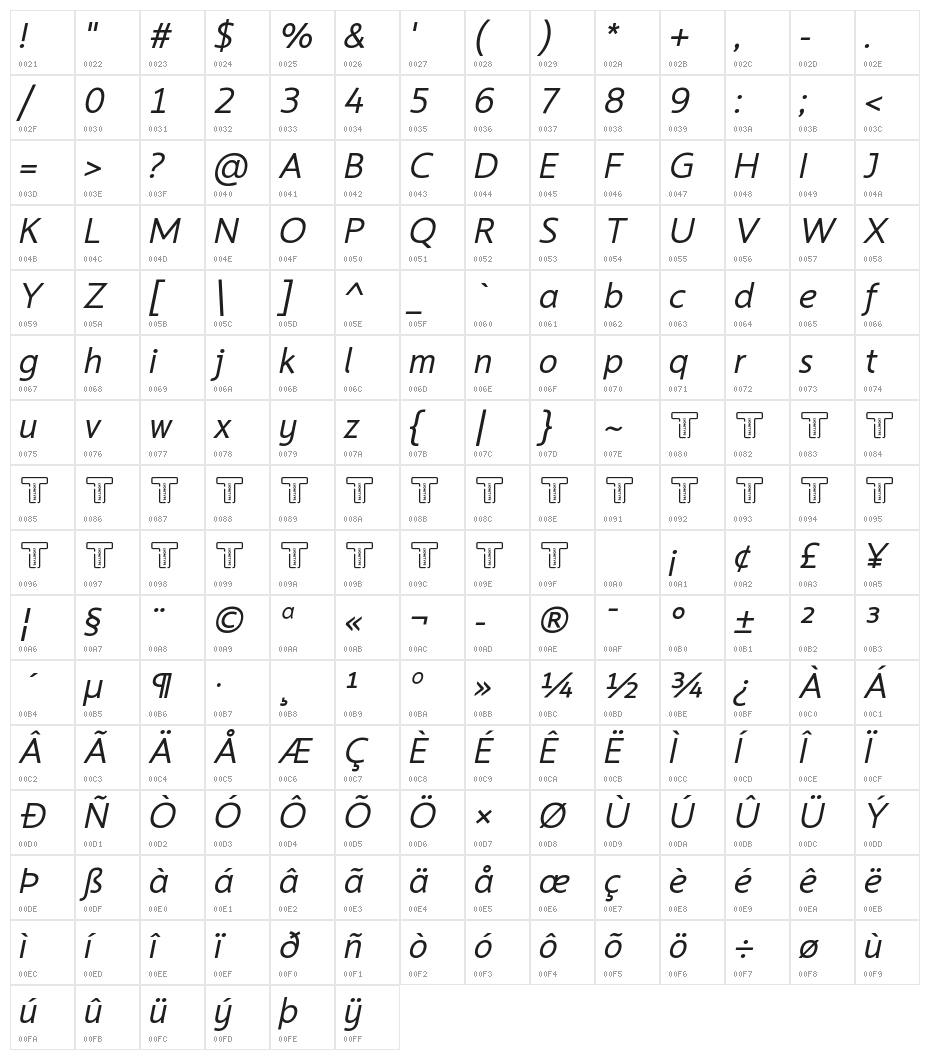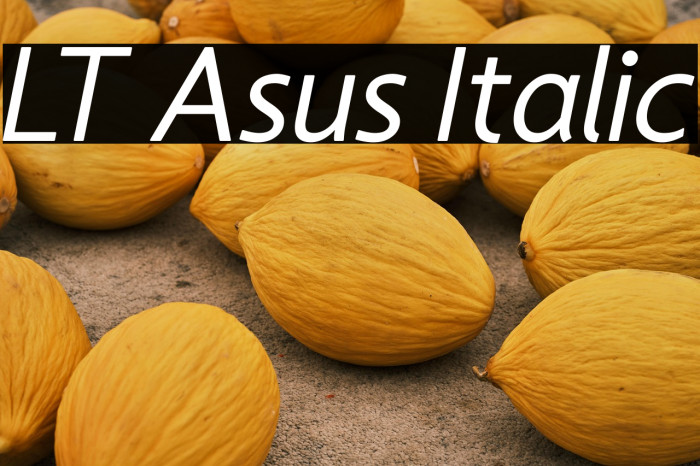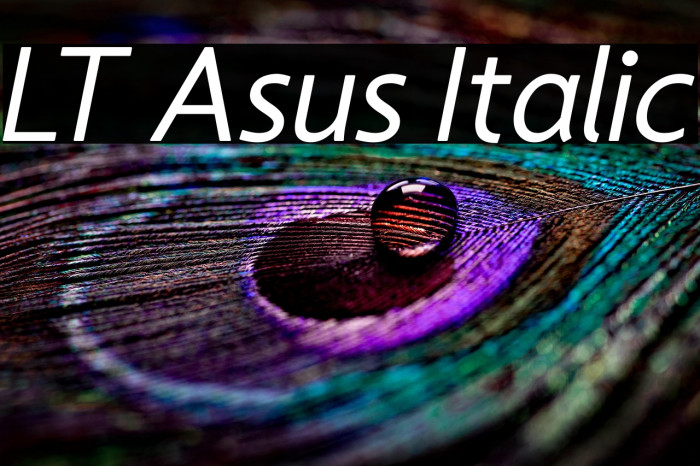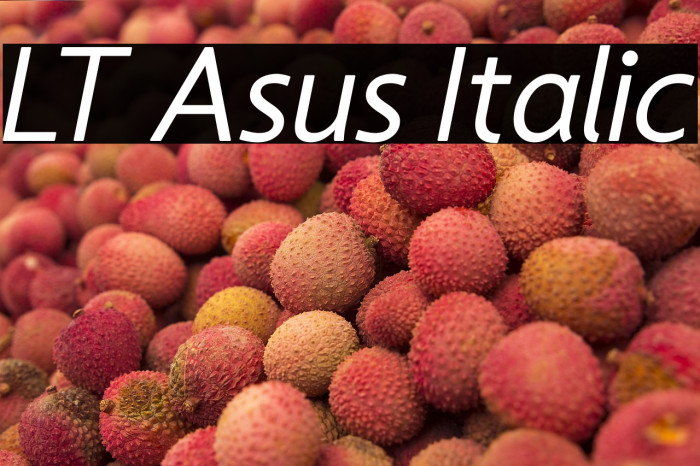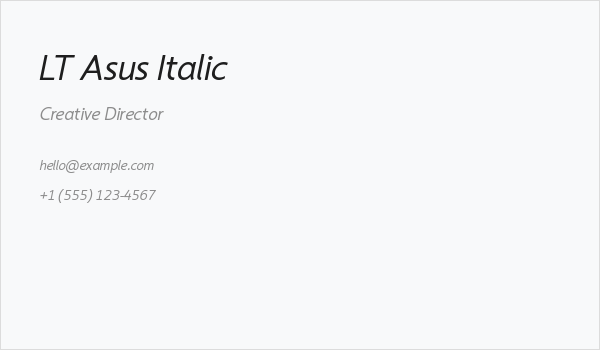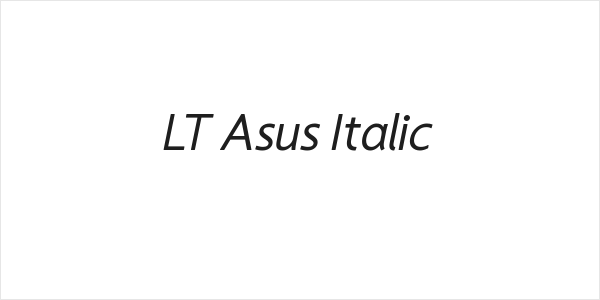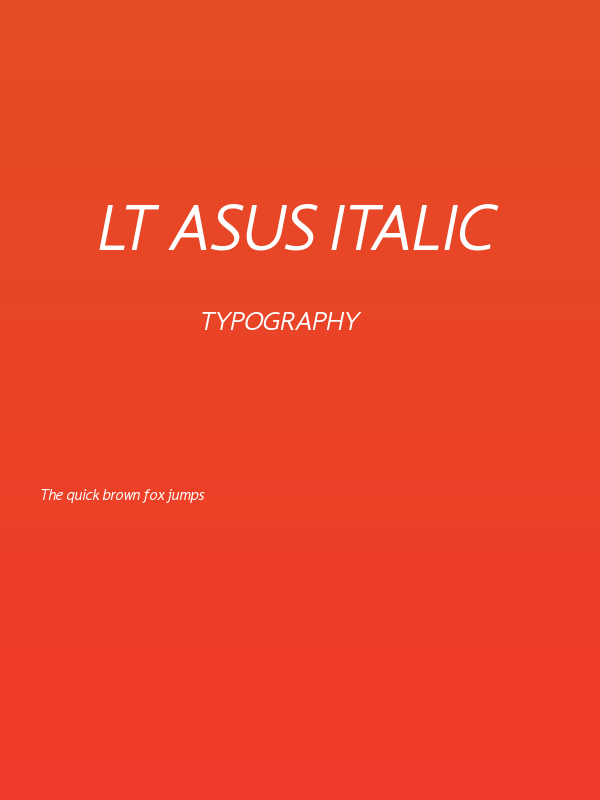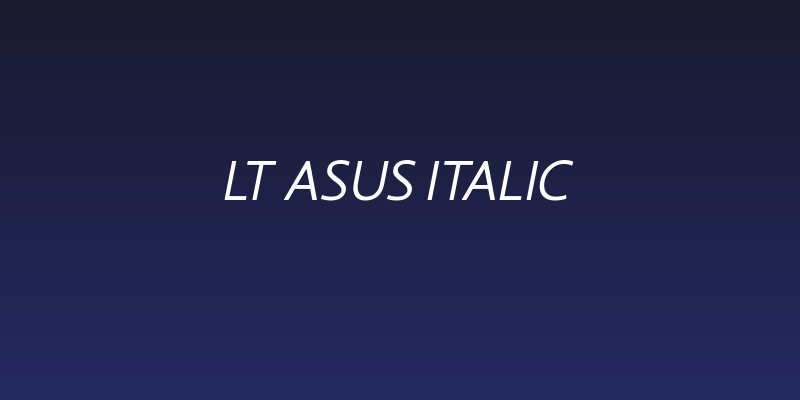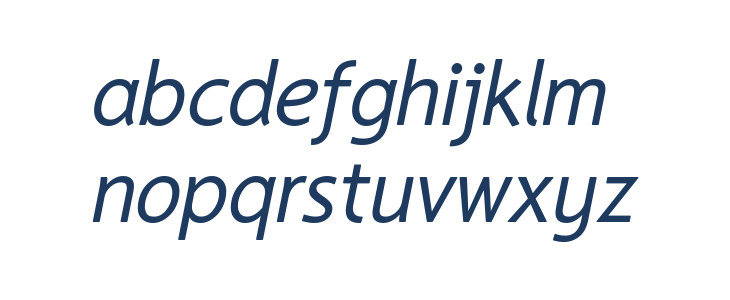
LT Asus Italic Font
LT Asus Italic Description
This font features a sleek and modern design with a slight italic slant, giving it a dynamic and forward-moving appearance. The characters are clean and well-defined, with smooth curves and a consistent stroke width that enhances readability. The uppercase letters are slightly taller than the lowercase, maintaining a balanced proportion. The numerals are clear and distinct, making them easily distinguishable. Special characters are well-integrated, maintaining the overall aesthetic of the font. The style is versatile, suitable for both digital and print media.
| Proposed Projects | Ideal for branding, advertising, digital interfaces, and editorial design. |